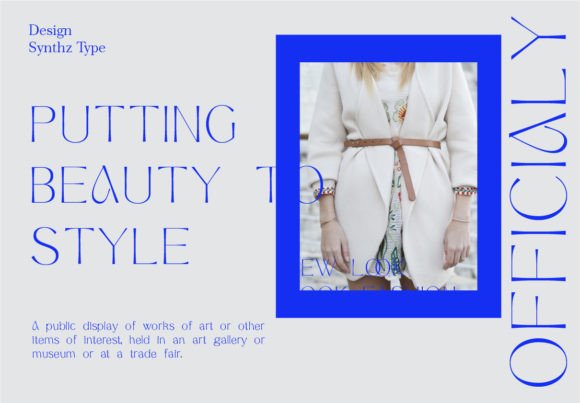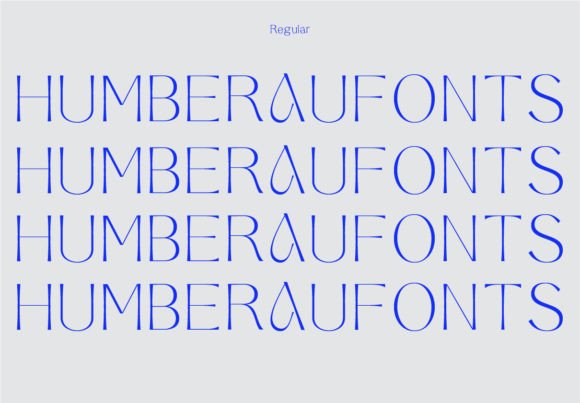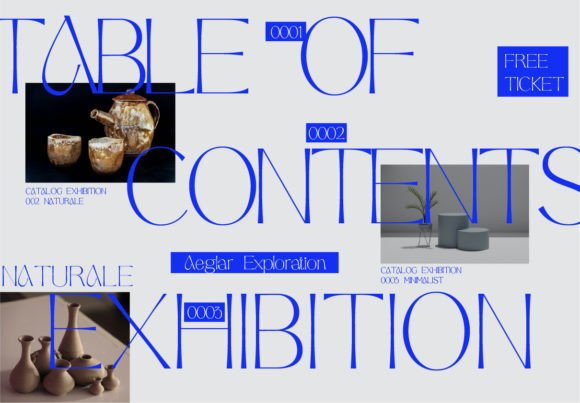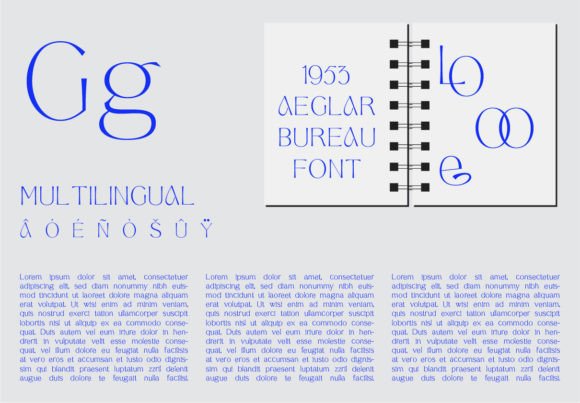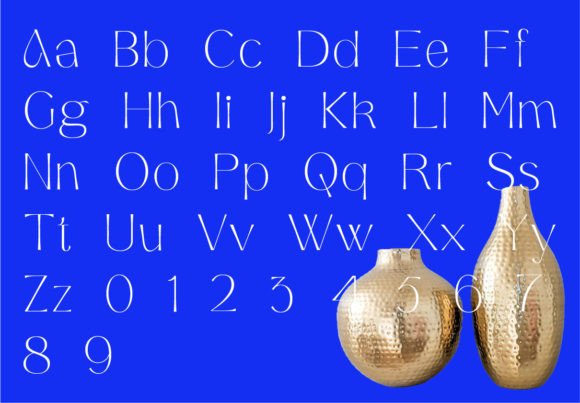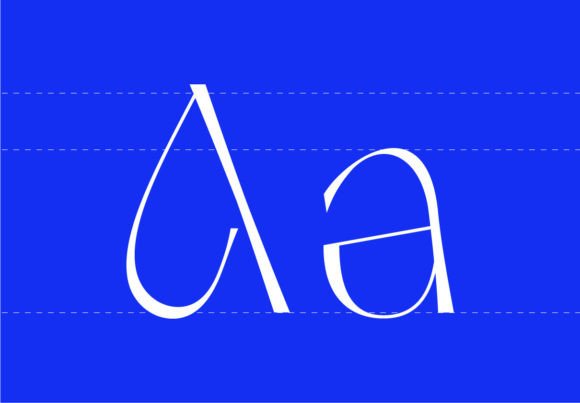
The Perfect Typographic Companion
As designers, we’ve all been there – staring at a blank canvas, trying to bring a concept to life. The words swirl in our minds, but the right font eludes us. That’s where the Aeglar Font comes in – a timeless classic that elevates any design to new heights.
With its elegant curves and clean lines, the Aeglar Font is the perfect choice for creating sophisticated and readable layouts. Whether you’re working on a print or digital project, this versatile font adapts seamlessly to any medium. Its refined proportions make it a valuable asset for designers seeking to add a touch of sophistication to their work.
For designers, the Aeglar Font is a trusted companion that never fails to deliver. Its understated yet sophisticated charm makes it a staple in any design arsenal, and its adaptability ensures it remains a go-to choice for years to come.
Aeglar Font Key Features
- Font Family: Aeglar is a sans-serif font family, suitable for various digital and print applications.
- Font Sizes: Available in 4 weights: Light (400), Regular (500), Medium (600), and Bold (700), allowing for flexible design options.
- Unique Characteristics: Aeglar features a clean, modern design with subtle rounded edges and an open feel, making it ideal for corporate, tech, and creative projects.
Aeglar Font Review
After using Aeglar Font, I have mixed feelings about its capabilities and limitations. Here’s my honest take:
- ✨ Beautifully crafted letterforms that are both elegant and refined. The font’s curves and lines flow smoothly, making it perfect for luxury branding or high-end design projects.
- ✨ Excellent legibility, even at small font sizes. This is a must-have for any font, especially in applications where text needs to be easily readable.
- ✨ The font comes in a variety of weights, from light to bold, making it versatile and suitable for various design applications.
- ⚠️ The font may be too ornate for some designs, which can make it difficult to read or appear cluttered. This is especially true for body text or large blocks of text.
- ⚠️ The font’s lack of expressiveness in certain weights may make it seem too uniform, which can be a drawback for designers who want to convey emotion or personality through their font choices.
Overall, Aeglar Font is a solid choice for high-end designs, but it may not be the best fit for every project. It’s essential to carefully consider the font’s capabilities and limitations before deciding whether to use it.
Tips for Getting the Most Out of Aeglar Font
Experiment with different font sizes and styles to create contrast and visual interest. Pair Aeglar with other fonts to create unique and captivating designs.
The Aeglar font is ideal for creating elegant and sophisticated designs, such as:
– Luxury branding and marketing materials
– High-end product packaging and labels
– Elegant business cards and stationery